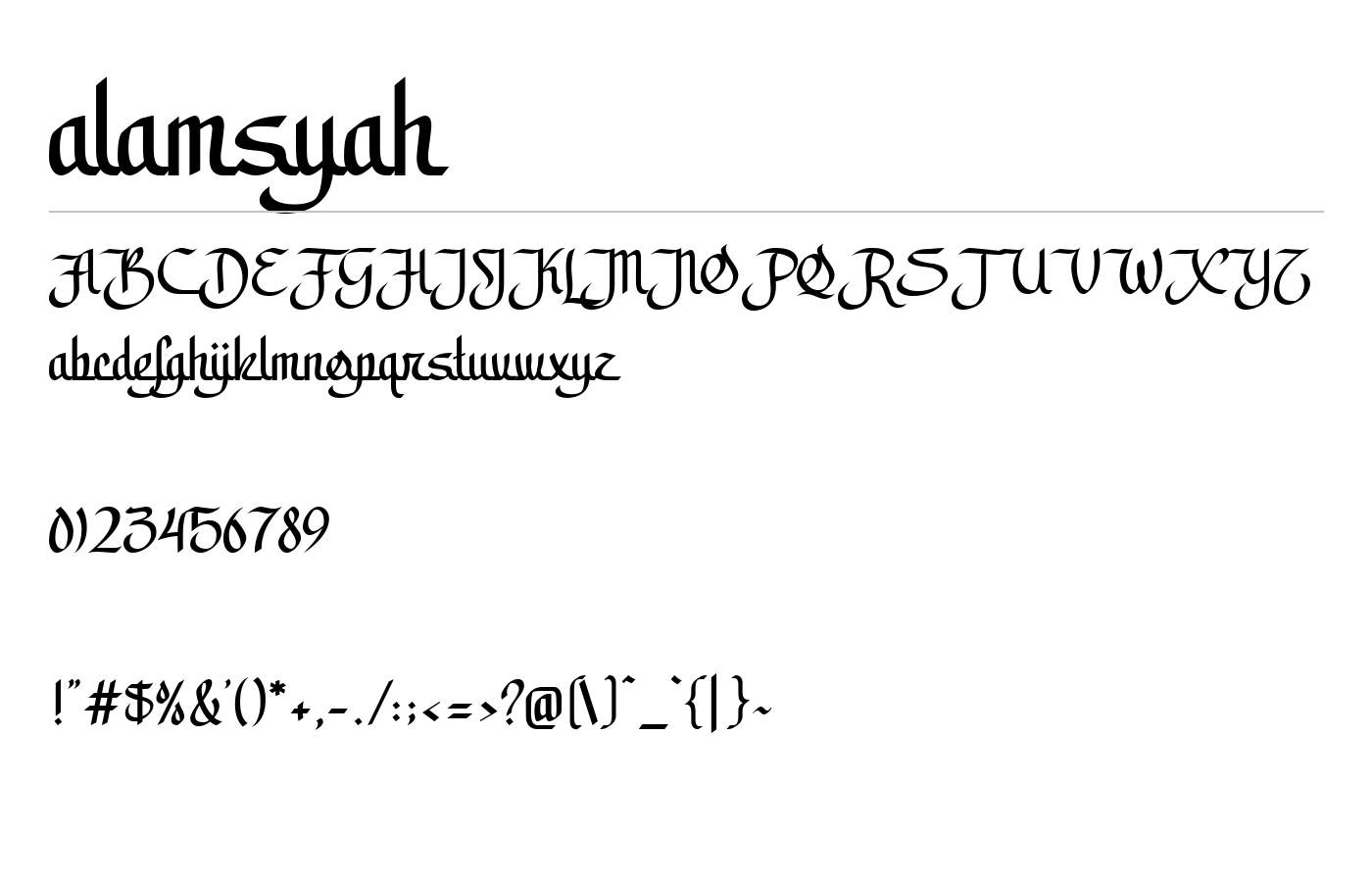
Alamsyah is an elegant serif font with a unique calligraphic flair, featuring high contrast strokes and distinctive, sharp serifs that blend traditional and artistic styles. Its tall x-height and fluid letterforms make it ideal for decorative and display purposes, adding a sophisticated, vintage charm to logos, invitations, and headlines. This font works best when used to create a refined, classic mood with a touch of creative individuality.
alamsyah Font
About alamsyah Font